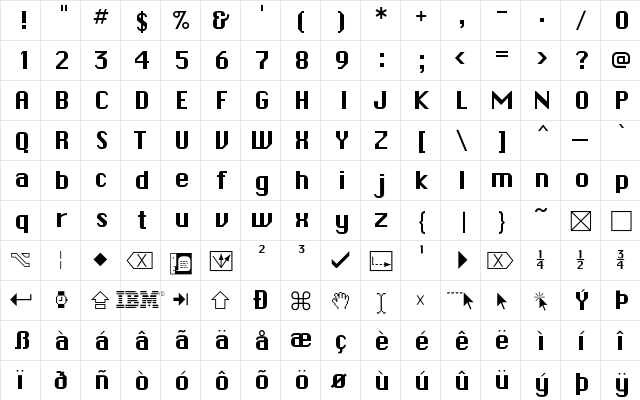
CheckboxFLF Regular Font Preview
CheckboxFLF Regular
Design Context for CheckboxFLF Typeface
CheckboxFLF takes a measured approach to typography — its balanced proportions and neutral character make it a reliable workhorse for both digital and print work.